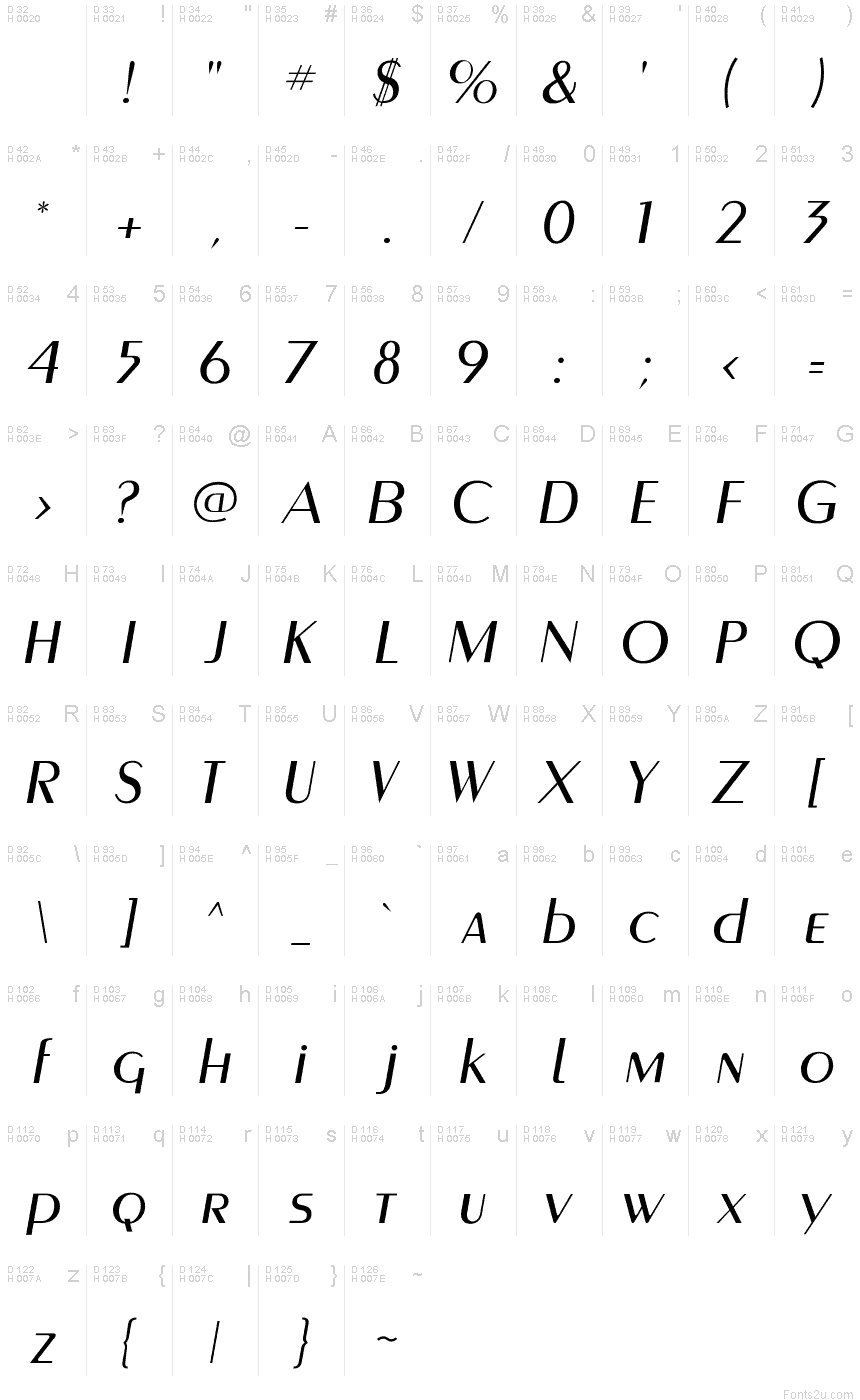
MontereyFLF-Italic
Monterey FLF Italic by Richard A. Ware is a free high-contrast italic sans serif with an elegant, fashion-minded profile. Long sweeping strokes and sharply tapered lines give the letters a fluid silhouette. The steep slant adds movement without making the forms look handwritten.
Magazine covers are an especially good setting for its refined proportions, and the same qualities suit fashion branding and fragrance packaging. Across these uses, the combination of slender curves, dramatic stroke changes, and forward motion conveys the sleek sophistication associated with luxury editorial and beauty design.